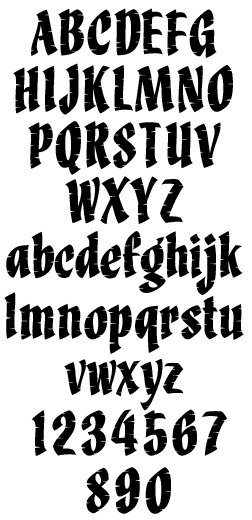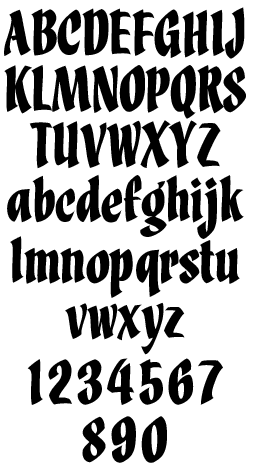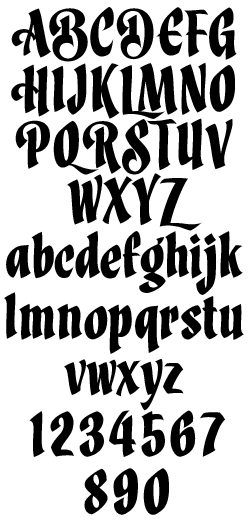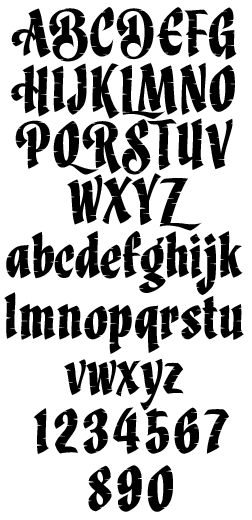
LHF Brushwork Includes the world's first organic fonts!* An easy to read calligraphic style from sign artist Dave Correll. Originally created for his own logo, the letterstyle was expanded to include 4 different styles: Regular, Swash Regular, Organic and Swash Organic.
* Dave swears that he used only a hand-cranked laptop to create the organic versions of LHF Brushwork. While this cannot be proven, we did find this interesting photo.